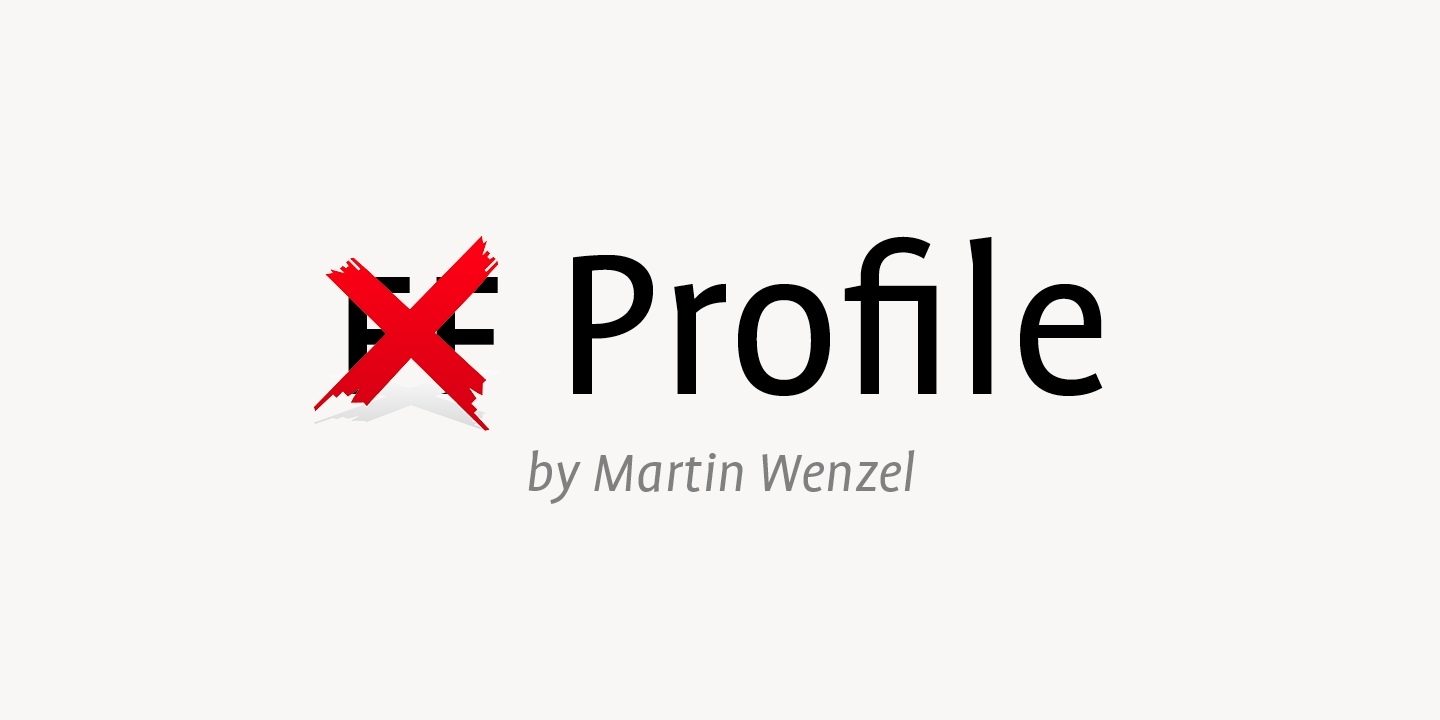
Profile Pro Font
Profile Pro Font is perfect for various design applications including corporate identities, professional portfolios, business card designs, executive presentations, financial reports, law firm branding, consulting company materials, annual reports, corporate websites, and premium service providers. This sophisticated typeface excels in projects requiring authoritative presence and professional credibility that commands respect and trust from discerning audiences.
What makes Profile Pro Font so exciting is its masterful balance between contemporary professionalism and approachable elegance. The font features clean geometric structures with subtle humanist touches that create warmth without sacrificing authority. Its precisely crafted letterforms and optimized spacing ensure exceptional readability across all media while maintaining distinctive character that sets brands apart from generic corporate typography. This makes it perfect for organizations seeking to establish credible, trustworthy communications that resonate with professional audiences.
The Profile Pro Font family includes comprehensive weight options from thin to black, along with matching italic styles that provide complete typographic flexibility. Each weight maintains consistent character and professional appeal while offering hierarchy options for complex document layouts. The family also features extended character sets, professional ligatures, and numerical variants including tabular figures that ensure perfect alignment in financial documents and data presentations.
Profile Pro Font stands out through its sophisticated design that communicates professionalism without appearing cold or impersonal. Its carefully balanced proportions and refined details ensure optimal performance in both print and digital applications, while its distinctive character adds personality without compromising credibility. From executive correspondence to comprehensive brand systems, this font provides designers with tools to create authoritative communications that build trust and demonstrate professional excellence.